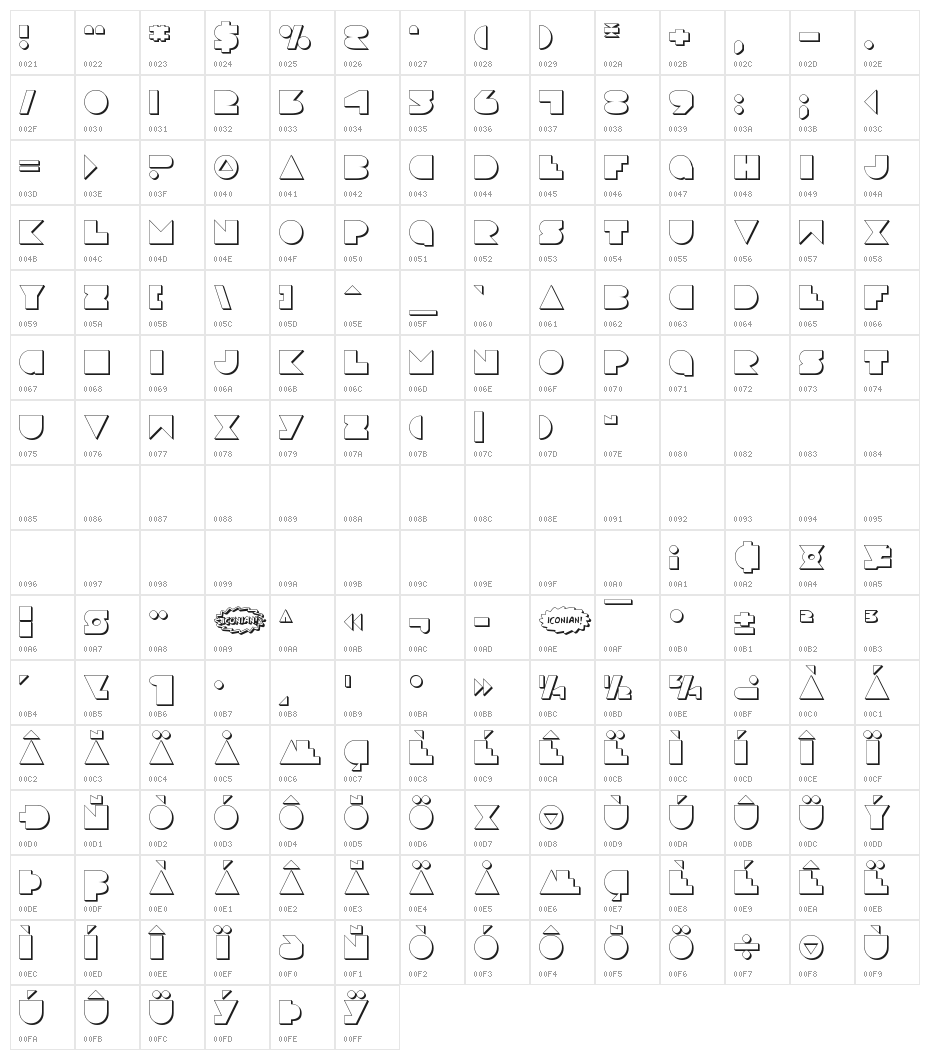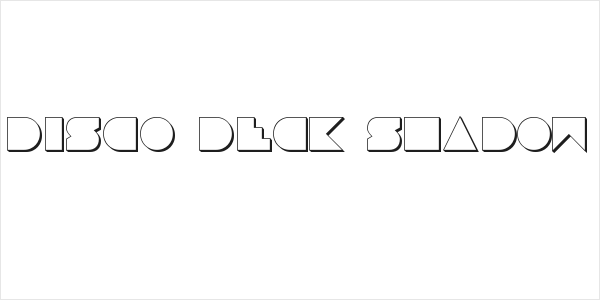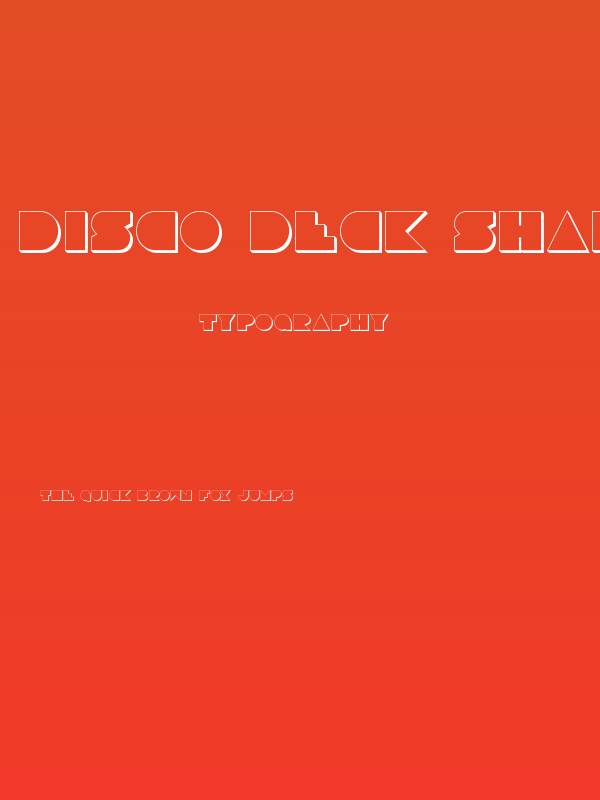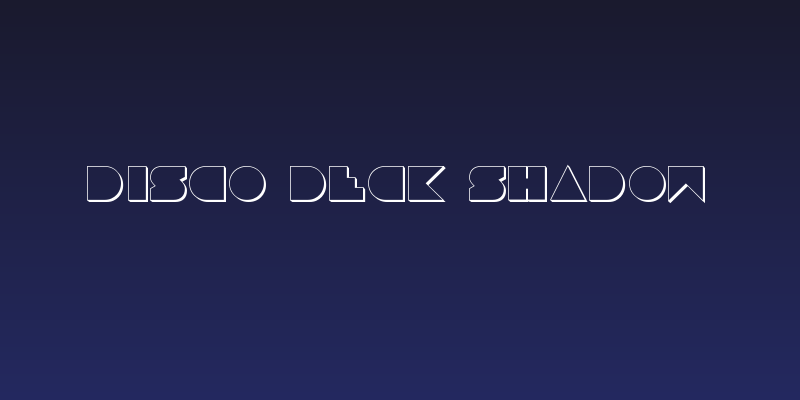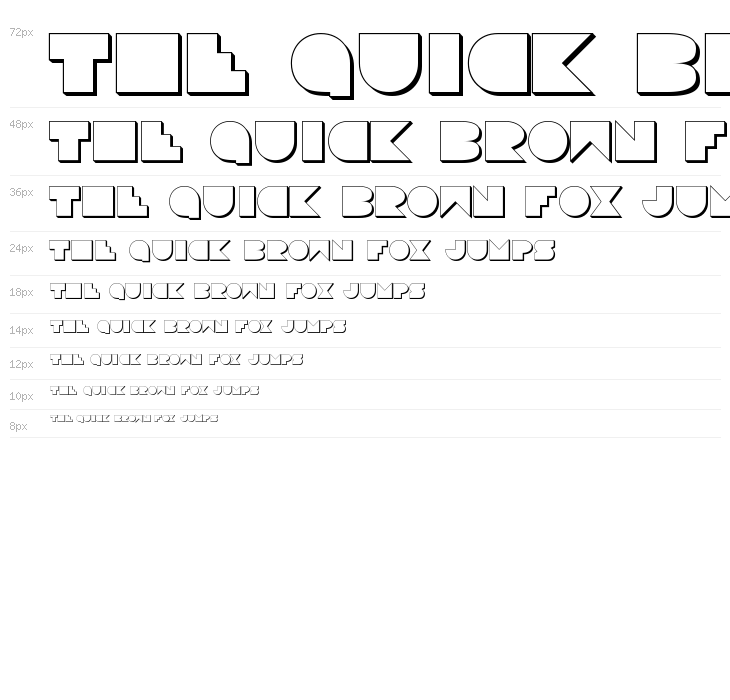
Disco Deck Shadow Font
Disco Deck Shadow Description
This font features a bold, geometric design with a distinct shadow effect that gives it a three-dimensional appearance. Each character is crafted with sharp angles and clean lines, creating a futuristic and dynamic look. The uppercase letters are particularly striking, with a mix of solid and outlined forms that enhance the visual impact. The numbers and special characters maintain the same bold style, ensuring consistency throughout. This font is ideal for projects that require a modern and eye-catching aesthetic, such as posters, album covers, or digital media.